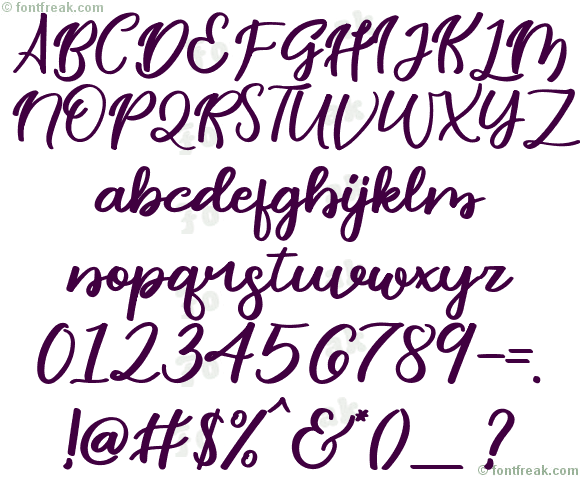
Done Perfectly FREE
Done Perfectly FREE by Abas Creative is a charming handwritten font that captures an inviting and personal touch, making it ideal for various creative projects. This font exudes warmth and friendliness, characterized by its smooth, flowing strokes and slightly irregular letterforms that mimic natural handwriting. The medium stroke weight combined with subtle contrast adds to its legibility, while the generous spacing between characters enhances readability, ensuring that your message is communicated clearly.
This versatile font is perfect for a range of applications. It shines in wedding invitations, where its elegant yet approachable style can set the tone for a special day. Additionally, Done Perfectly FREE is an excellent choice for greeting cards, adding a personal flair that resonates with recipients. Restaurant menus can also benefit from this font, as it can create an inviting atmosphere, making dishes appear more appealing. Content creators will find it suitable for social media graphics, where its casual style can engage audiences effectively. Lastly, small business owners can employ this font in branding materials, helping to convey a friendly and authentic image.
What sets Done Perfectly FREE apart is its unique blend of elegance and approachability, allowing it to fit seamlessly into both formal and informal contexts. This font not only enhances the visual appeal of your designs but also communicates a sense of care and creativity, making it a standout choice for any project.